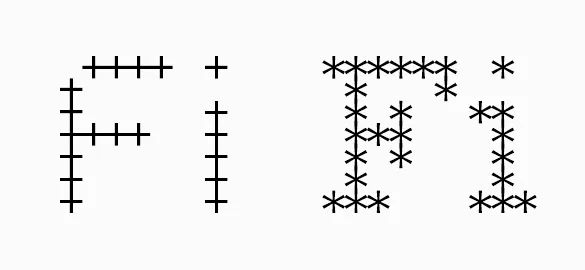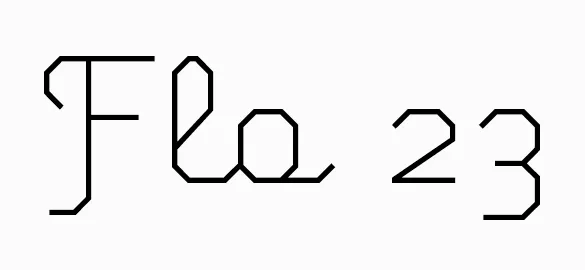
Designing FIG
Named for the collaboration of Frank Sheeran, Ian Chai and Glenn Chappell that produced the FIGlet program, FIG is a set of three typefaces in the spirit of early email and ASCII art explorations. Written in 1991 using the programming language C, the FIGlet program allowed users to create letters with basic ASCII characters and then paste them into a software program of choice. Alphabets of surprising ingenuity – often made using just a single element – could then be tasked for everything from email signatures to banners and posters.
Taking inspiration from this reductionist approach, FIG Sans and Serif follow the FIGlet construction principal literally and rigidly: they are made from a single element. FIG Sans uses only the + symbol while FIG Serif uses the * symbol to construct each character. As your eyes have now gathered, these are display fonts to be sure – larger sizes are encouraged.
In contrast to these hardline construction principles, FIG Script follows a less rigid structure to arrive at something of an upright geometric script. However, after a lot of trial and error it became obvious that a script with too few angles was illegible. The resulting surprise pairing of primitive geometry against swooping ascenders/descenders makes for a script that’s both delicate and versatile.